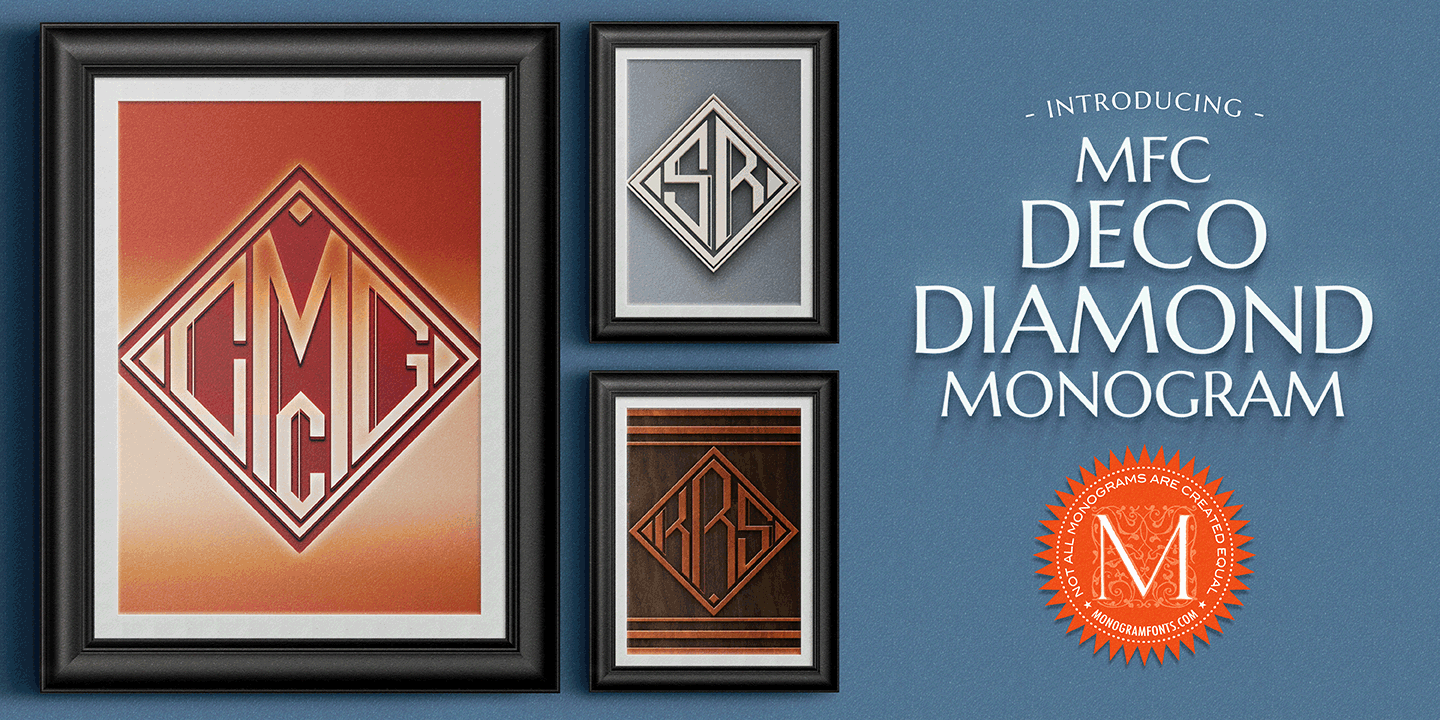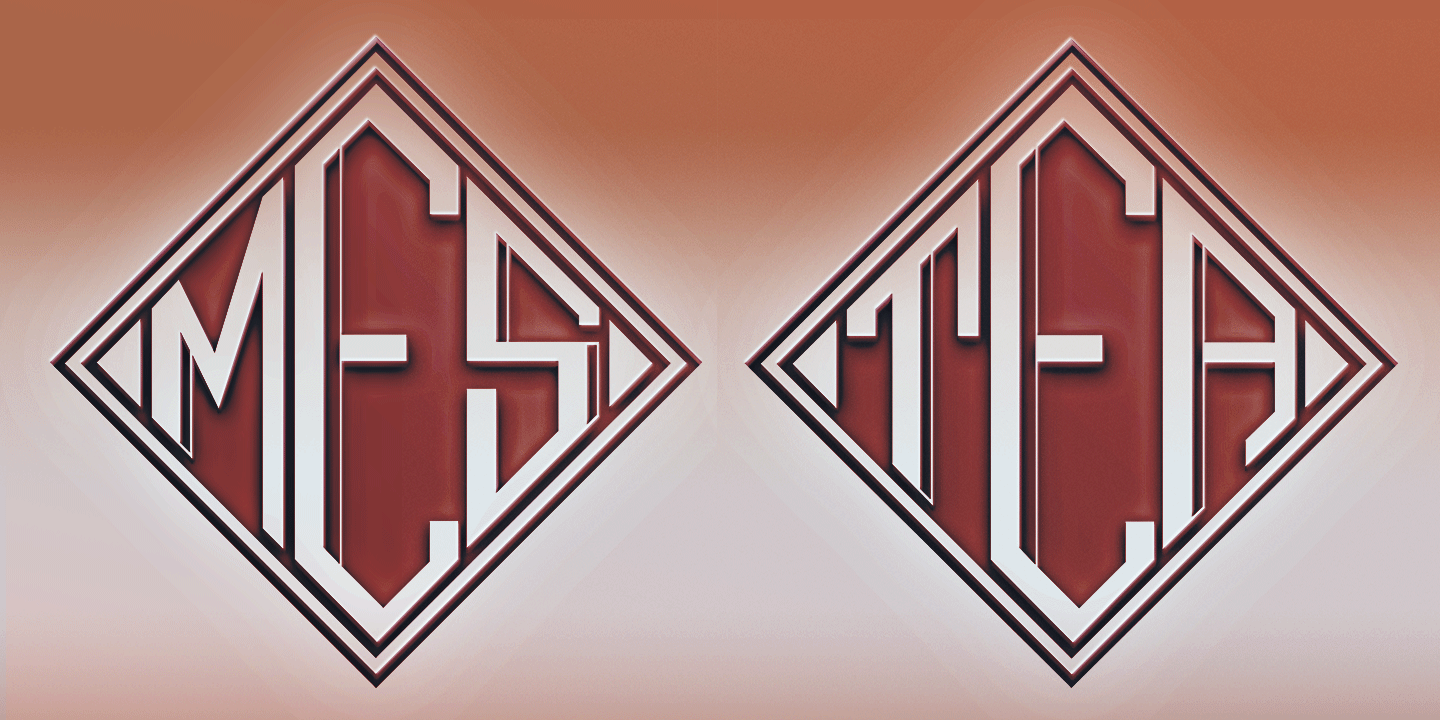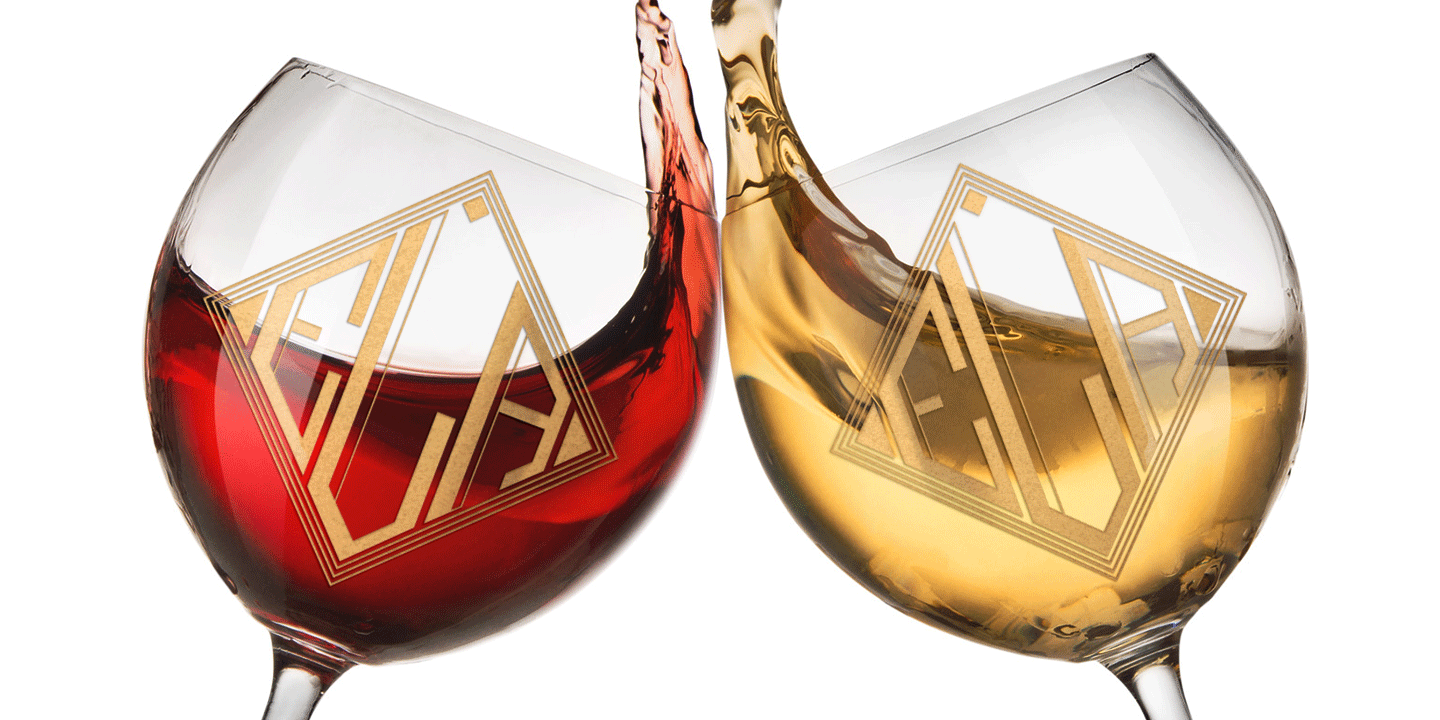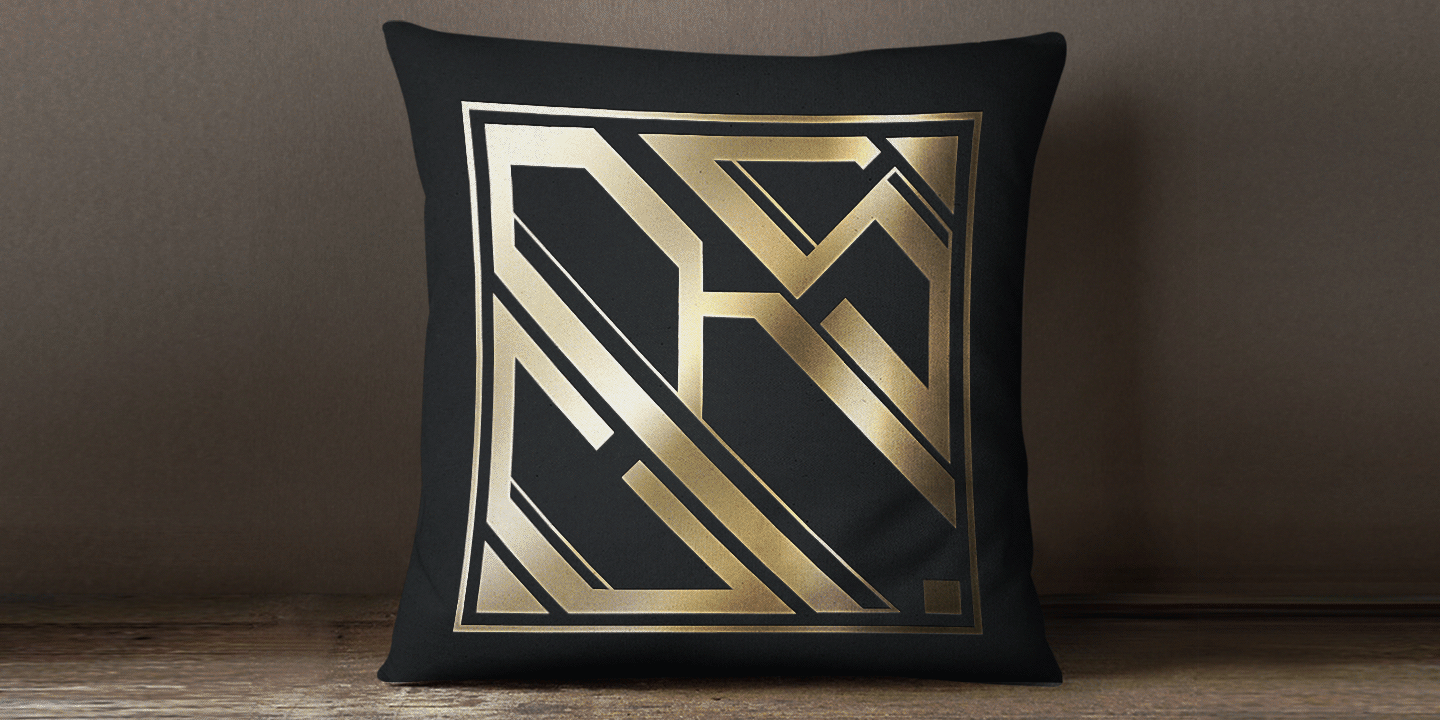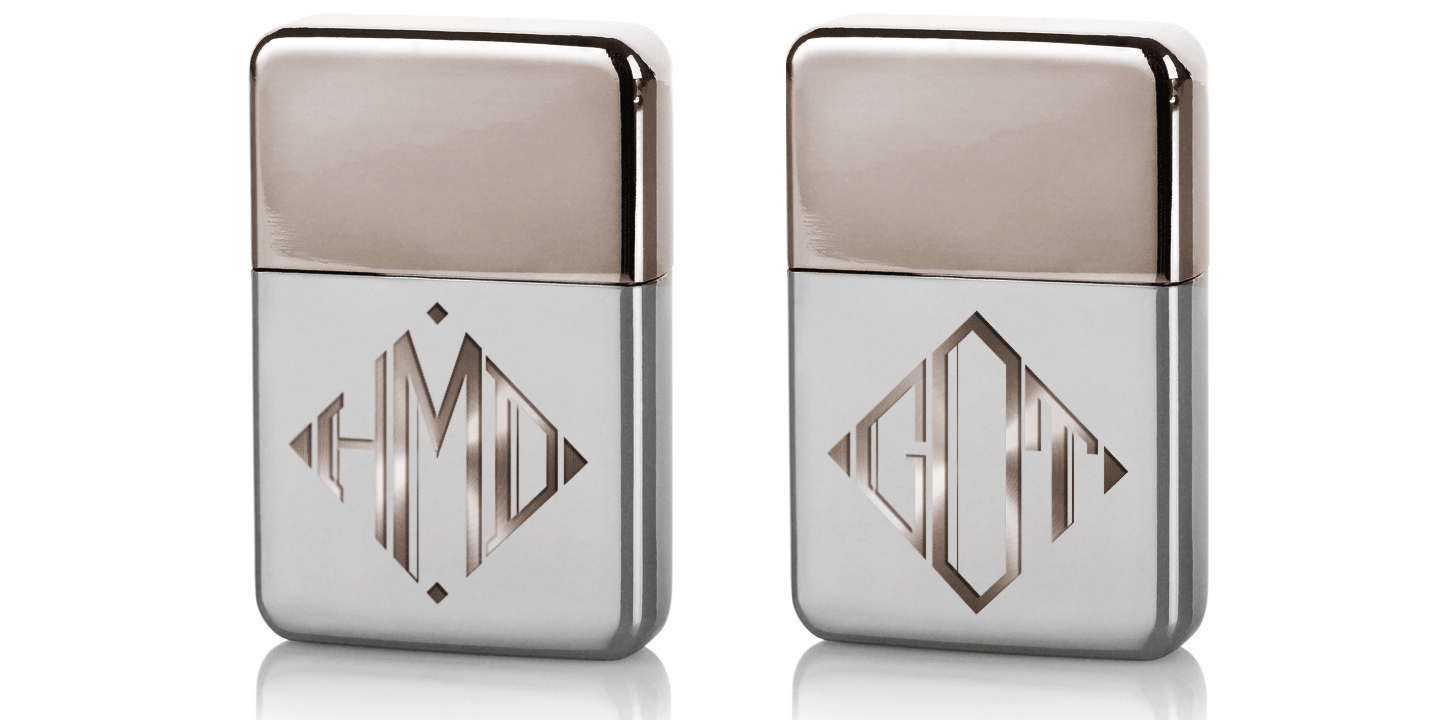
MFC Deco Diamond Monogram
Font Family by Monogram Fonts Co
MFC Deco Diamond Monogram finds its historical influence in a vintage monogram transfer sheet of unknown origin. We've digitally recreated it, adding missing characters to fill out the character set, and programming in functionality to make customization a snap.
MFC Deco Diamond Monogram is capable of creating two or three letter monograms, either free-floating or surrounded by a selection of different frames.
If you are looking for a diamond format monogram with deco influence, then you've found yourself your mark maker in MFC Deco Diamond Monogram.